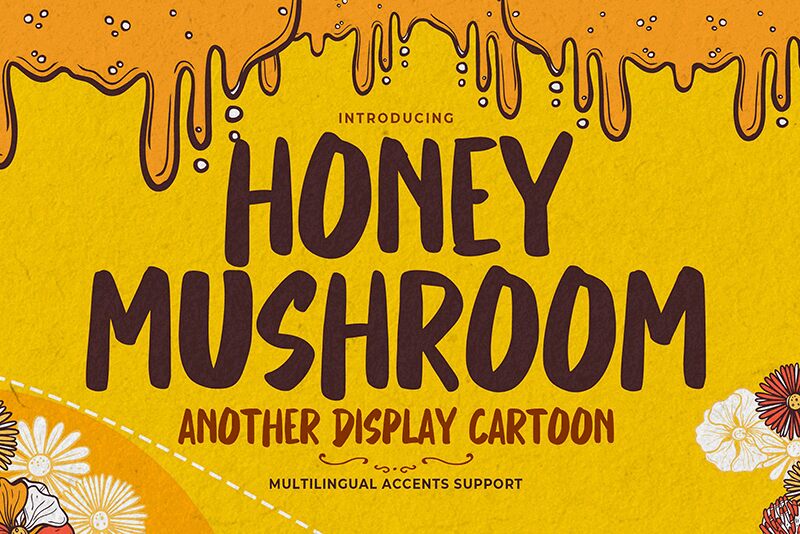
Honey Mushroom
Honey Mushroom font by Gassstype is a bold cartoon display font that instantly leaves its mark. Retro-inspired, the style characterizes playful designs to convey a casual aesthetic and a friendly tone. Its modern appearance holds much promise in branding projects which can be accomplished due to its organic feel and distinct legibility.